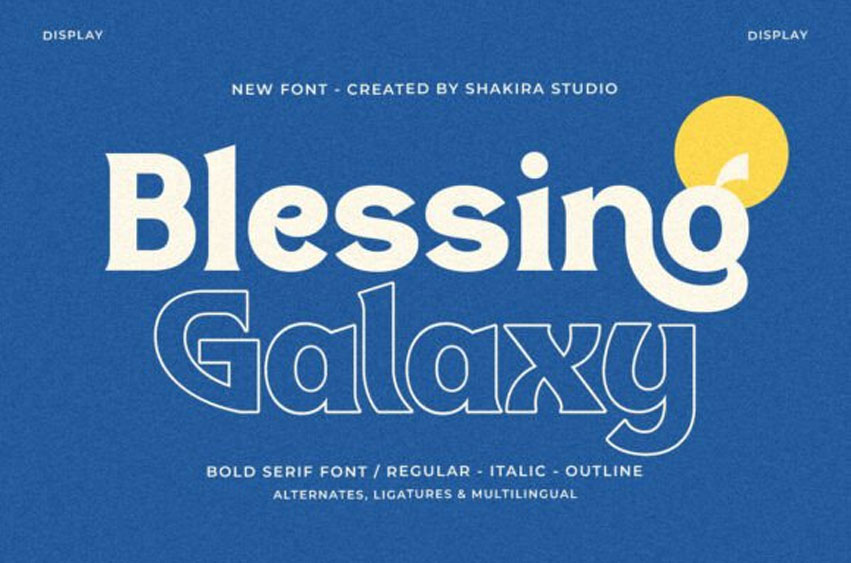
Blessing Galaxy Font
Blessing Galaxy Font is a bold and vibrant modern serif display font that marries elegance with innovation. Designed by the visionary minds at Shakira Studio, this font collection includes Regular, Italic, and Outline variants, each crafted to offer distinct visual narratives. With a rich palette of alternates and ligatures, ‘Blessing Galaxy’ ensures that every creation is as unique as the designer behind it.
This typeface is not just multilingual but multicultural, effortlessly adapting to a myriad of design contexts. Whether you’re crafting a striking headline, a sophisticated logo, or an inviting editorial layout, ‘Blessing Galaxy’ brings a touch of stellar beauty to all your projects.